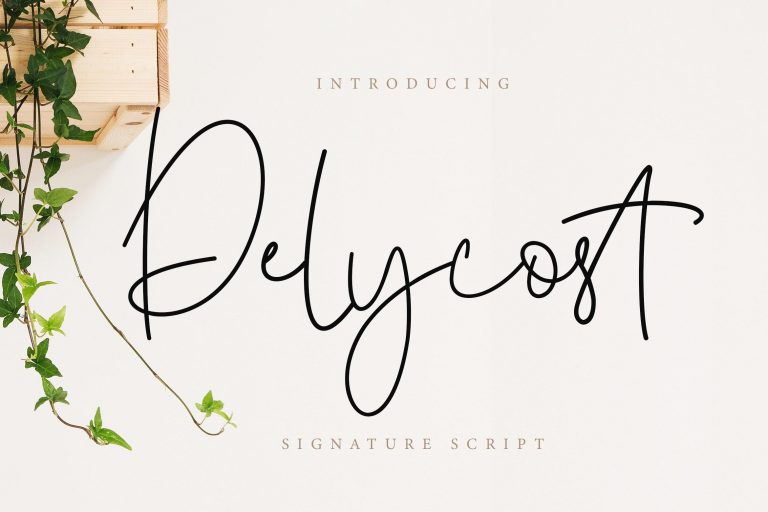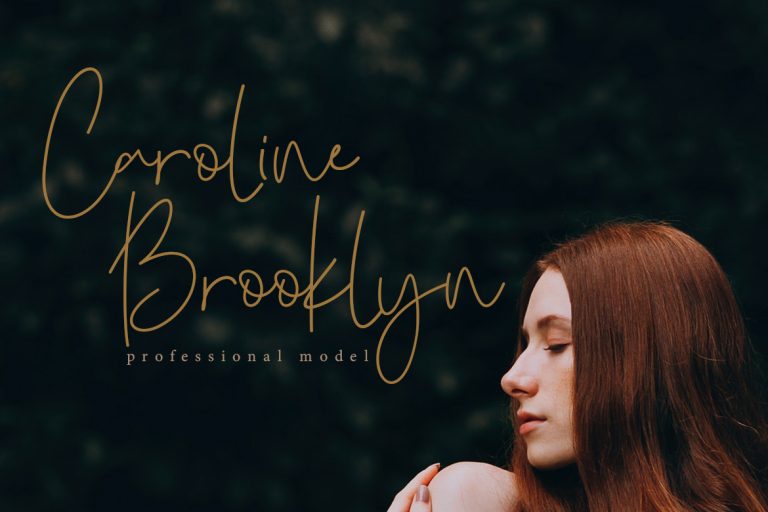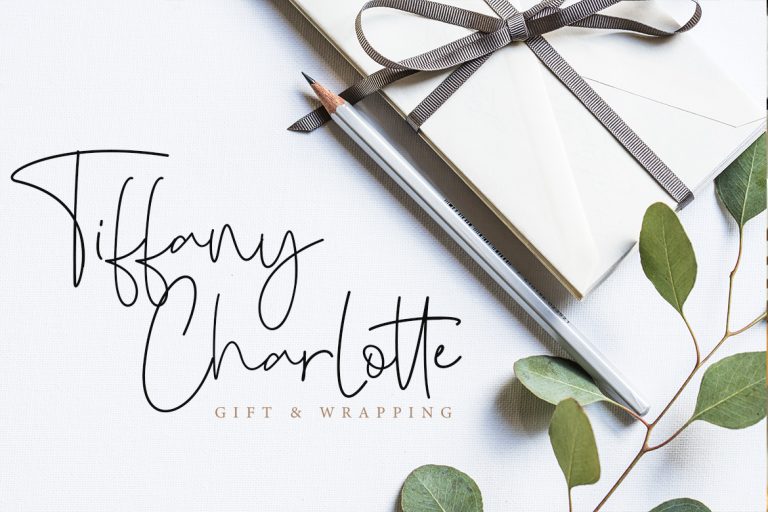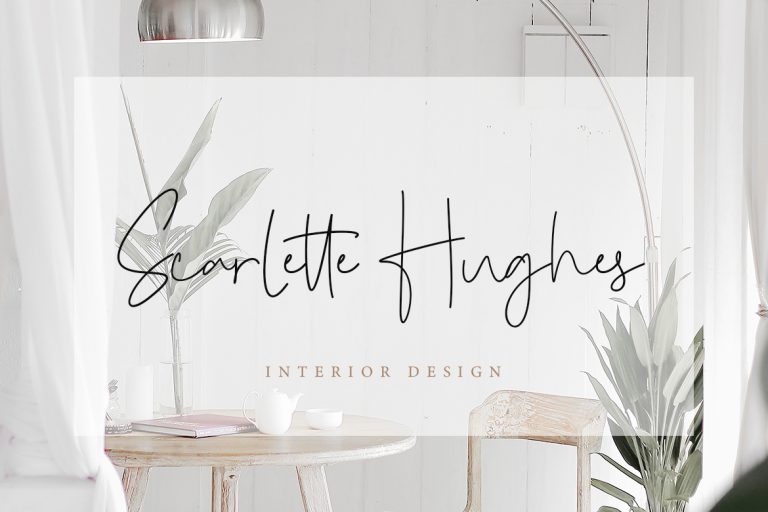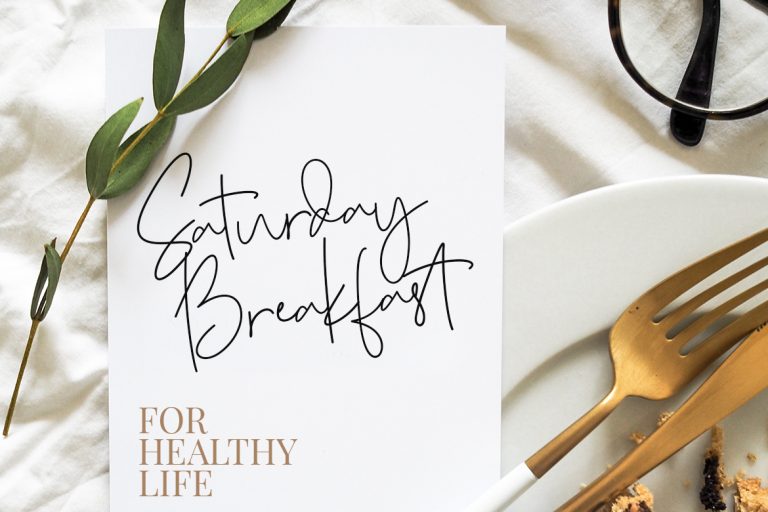
Delycost Signature Style is a fashionable and super-chilled new handwriting font script with some sexy stylish.
Delycost Signature Style is perfect for branding projects, logo, wedding designs, social media posts, advertisements, product packaging, product designs, label, photography, watermark, invitation, stationery and any projects that need handwriting taste.
Delycost Signature Style